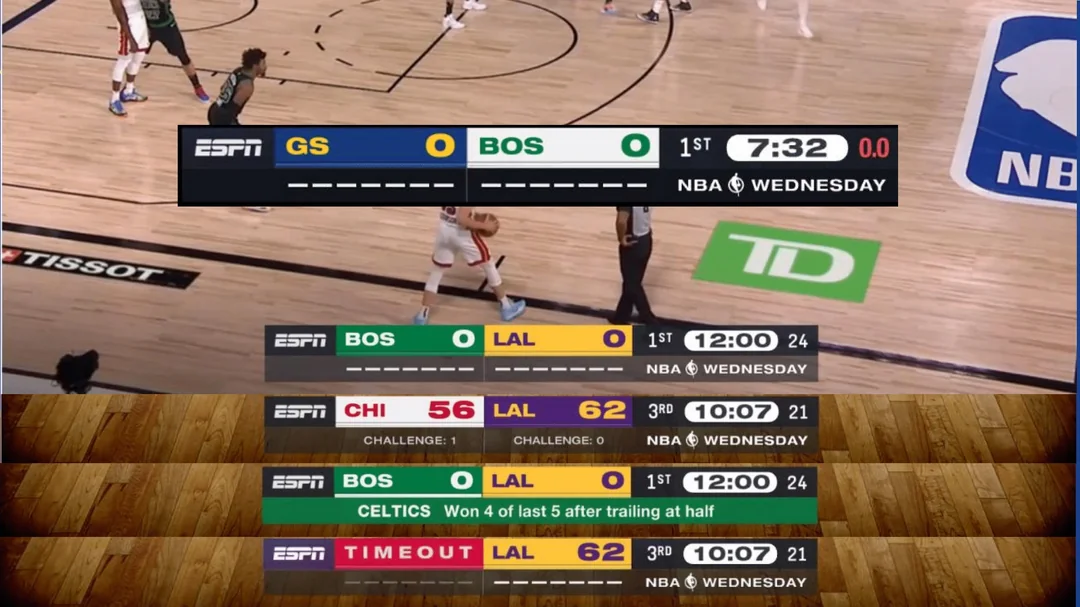
What is the ESPN NBA scoreboard font?
I am talking about the bold wide numbers in the scoreboard like the 56. The team names might be in the same font, but I am not sure.